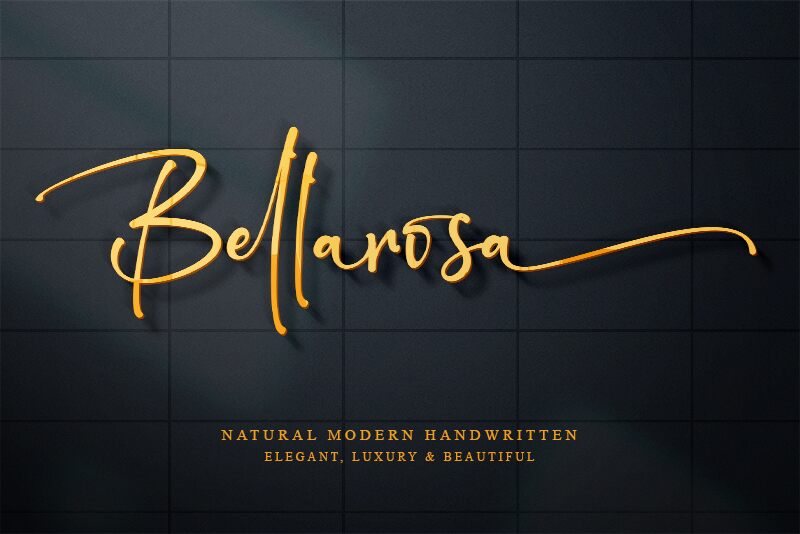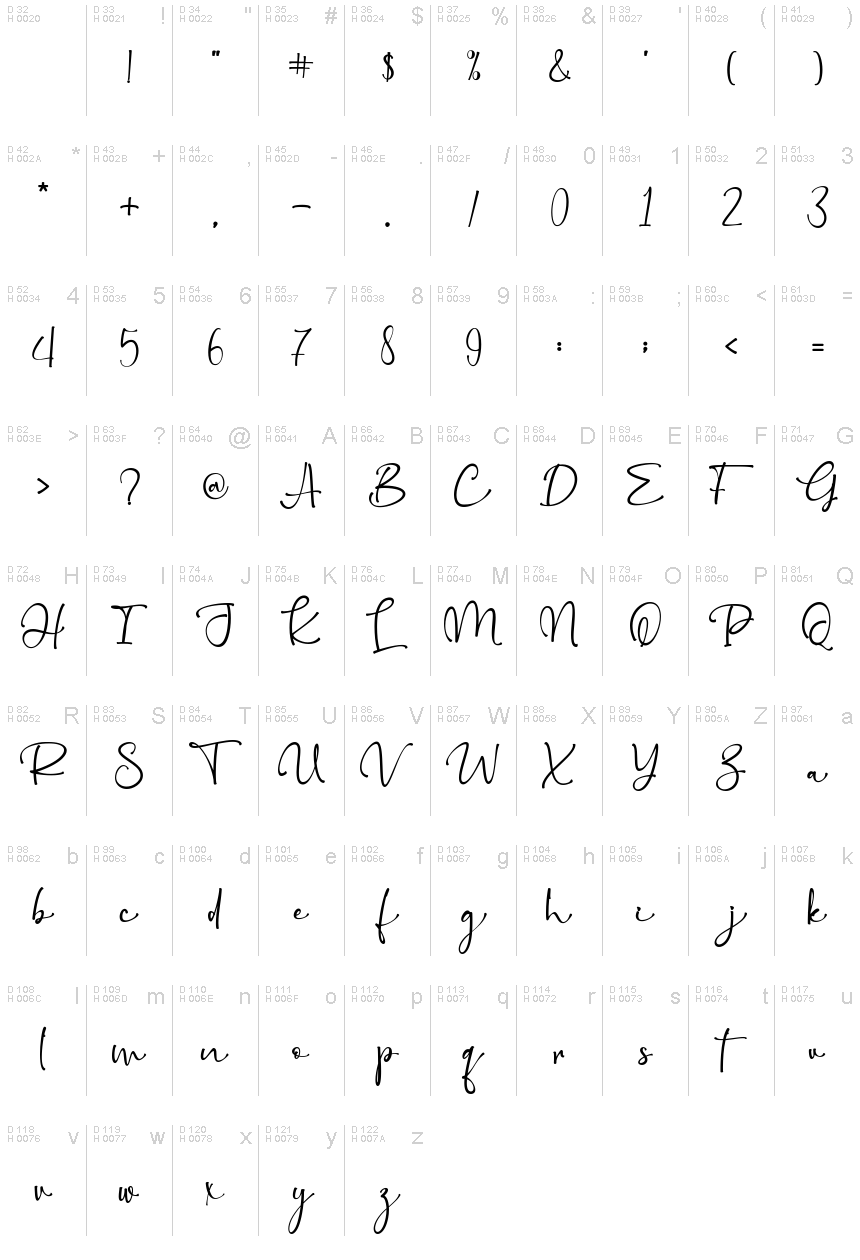
Bellarosa, crafted by Letterara, exudes a personal touch with its handwritten signature style that carries the warmth and authenticity of an individual's penmanship. The elegant flow of its curves and the gentle variation in stroke thickness create a sense of intimacy and sophistication, making it ideal for invitations, branding materials, and heartfelt messages where a human touch is desired.
With its visually appealing aesthetic, Bellarosa brings a bespoke charm to any project it graces.